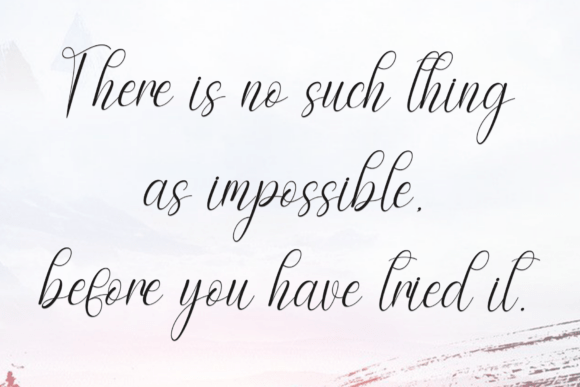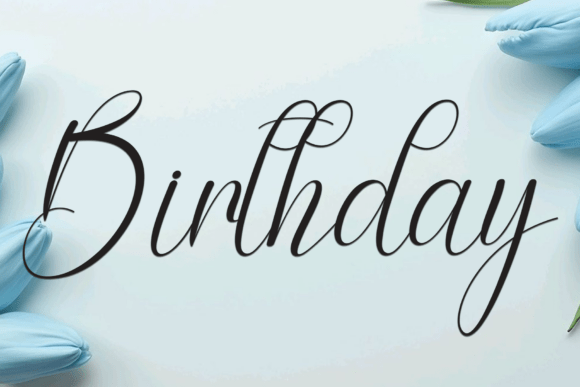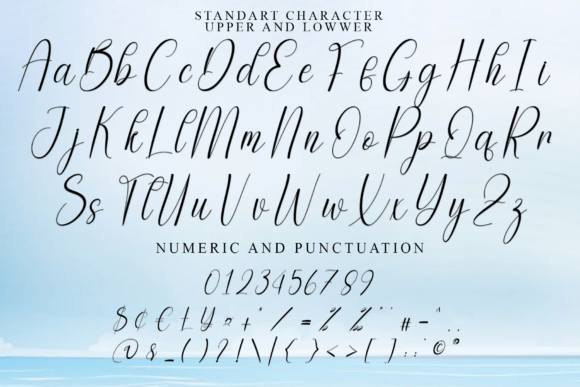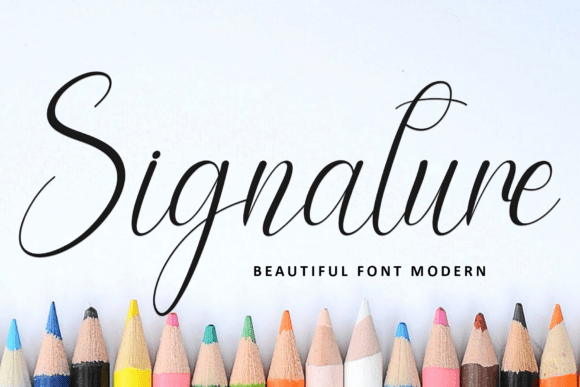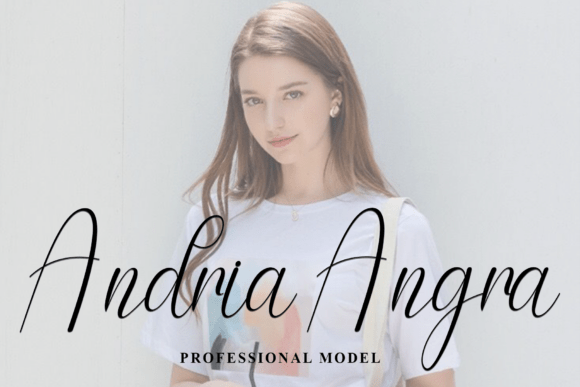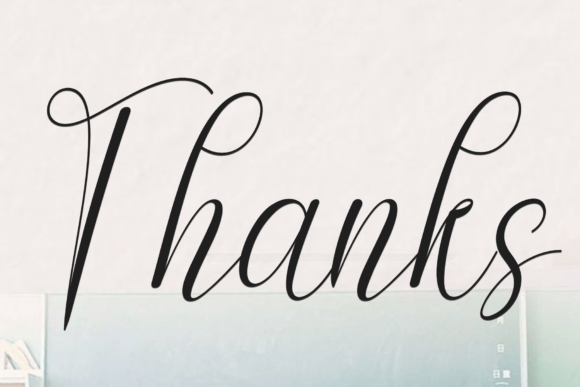
Unlocking the Magic of Happy Dreaming Font
Have you ever found yourself in the midst of a creative moment, where the world around you melts away, and all that’s left is the rush of ideas and inspiration? That’s exactly where the Happy Dreaming Font comes in – to bring a touch of magic to your designs and make your creative vision a reality.
This beautiful and eye-catching font is designed with a soft, unique touch that gives it a special character, making it meaningful and versatile for future use. With various characters, it’s perfect for design projects, crafts, and other creative works. The Happy Dreaming Font is compatible with various applications, including Windows and open-source platforms, making it ideal for a wide range of products.
Whether you’re a seasoned designer or just starting out, the Happy Dreaming Font is a valuable addition to your toolkit, allowing you to enhance your designs and make them appealing to many audiences across different artistic and creative fields.
- Unique Characteristics: The Happy Dreaming Font features a whimsical, handwritten style with flowing connections between letters, making it ideal for creative and artistic applications.
Happy Dreaming Font Review
I recently had the chance to work with the Happy Dreaming Font, and I must say it’s a mixed bag. On one hand, I love the whimsical and playful feel it brings to any design. ✨ The curves and flourishes are so smooth and well-executed, making it perfect for creating dreamy, ethereal designs. The font is also incredibly versatile, working well for both digital and print projects.
- Unique and whimsical feel
- Smooth curves and flourishes
- Highly versatile
- Great for dreamy, ethereal designs
However, there are some limitations to consider. ⚠️ The font is not as legible at smaller font sizes, which can be a problem if you’re working on a project that requires a lot of text. Additionally, the font’s unique style can be overwhelming if used in excess, so be sure to use it sparingly.
Overall, I would give the Happy Dreaming Font 4 out of 5 stars. It’s a great addition to any designer’s toolkit, but be sure to use it judiciously. With a little creativity and restraint, this font can add a touch of magic to even the most mundane designs.
Tip: Use Happy Dreaming Font for whimsical and playful designs, such as birthday invitations or children’s party decorations.
Tip: Use Happy Dreaming Font for creative and imaginative projects, such as illustrations or graphics.
Tip: Use Happy Dreaming Font for presentations or documents that require a playful and creative touch.
Q: What is the recommended font size and line spacing for optimal readability with Happy Dreaming Font?
For optimal readability, we recommend using a font size between 12 and 14 points, with a line spacing of 1.2 to 1.5 times the font size. This will help ensure that your text remains clear and legible, even at smaller font sizes.